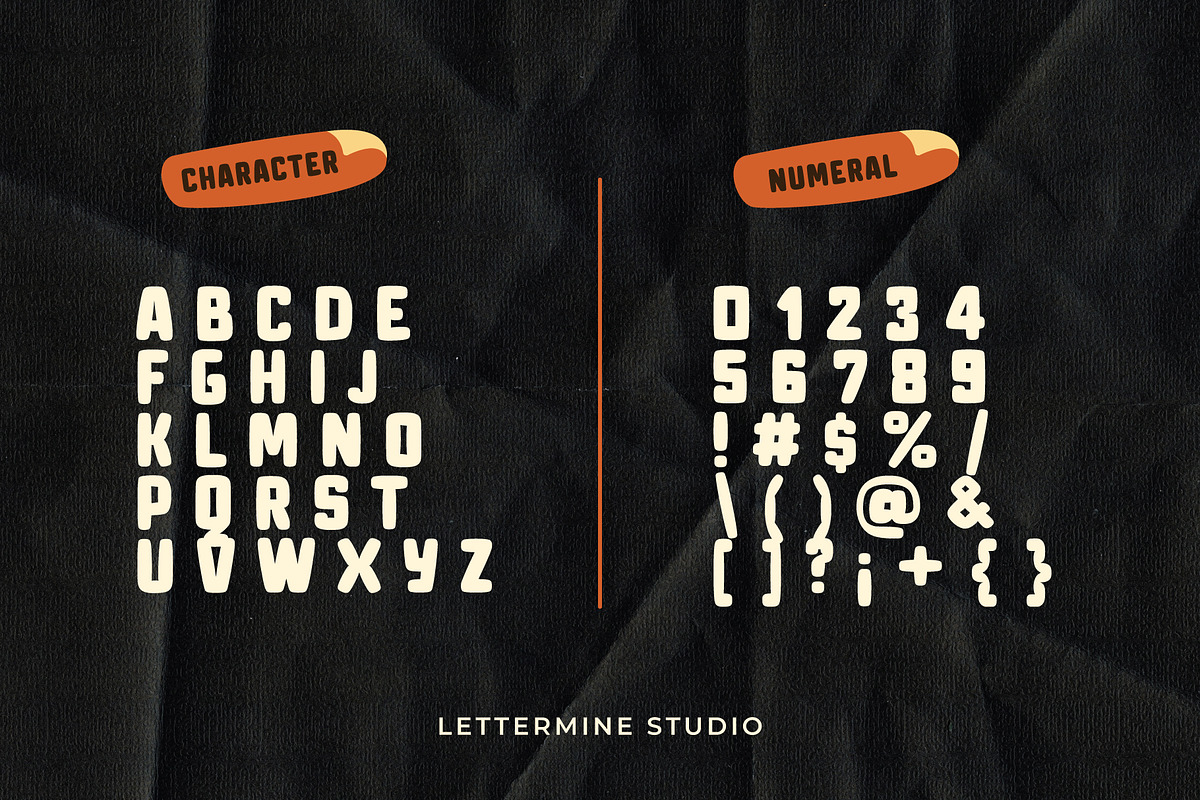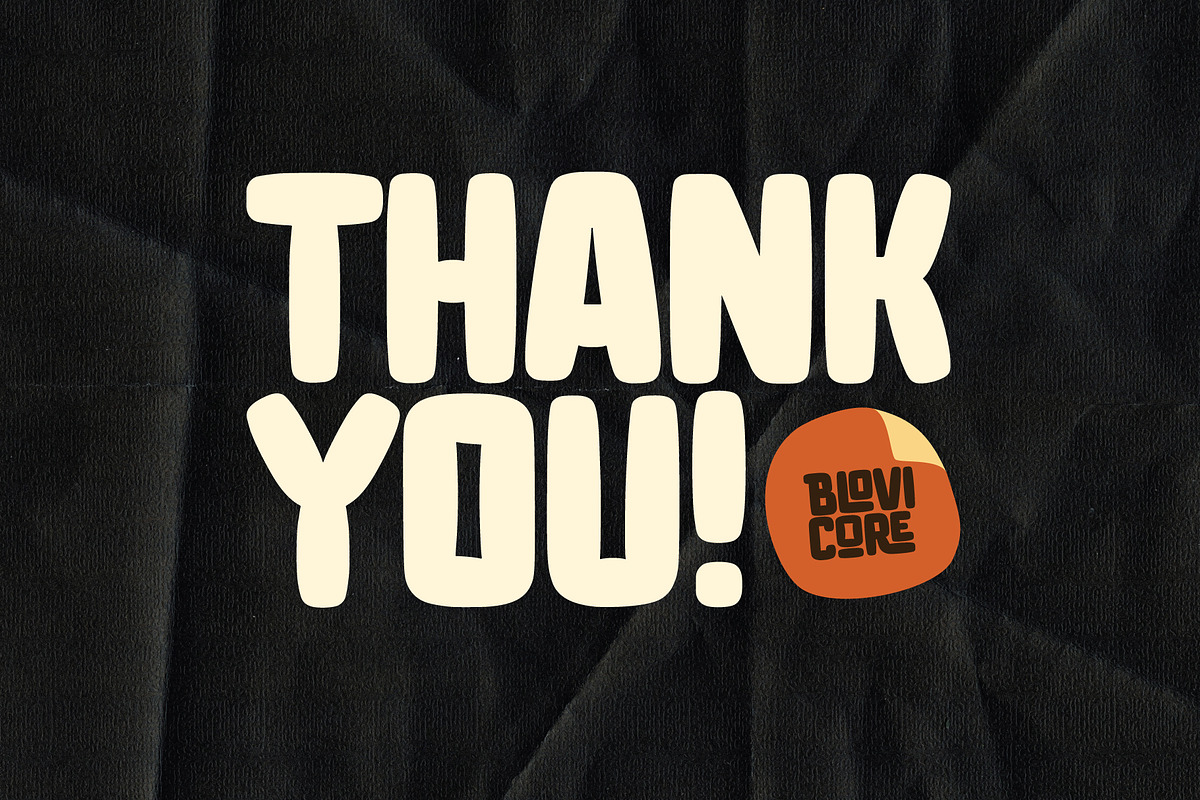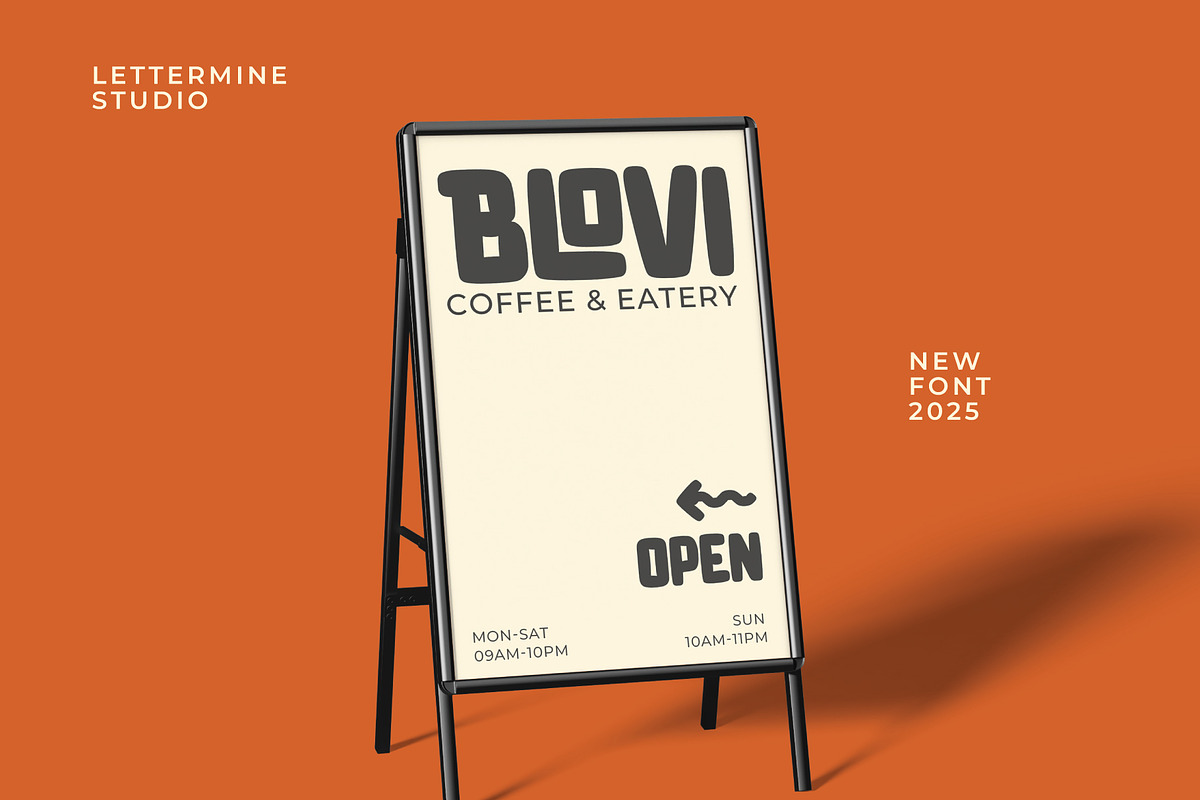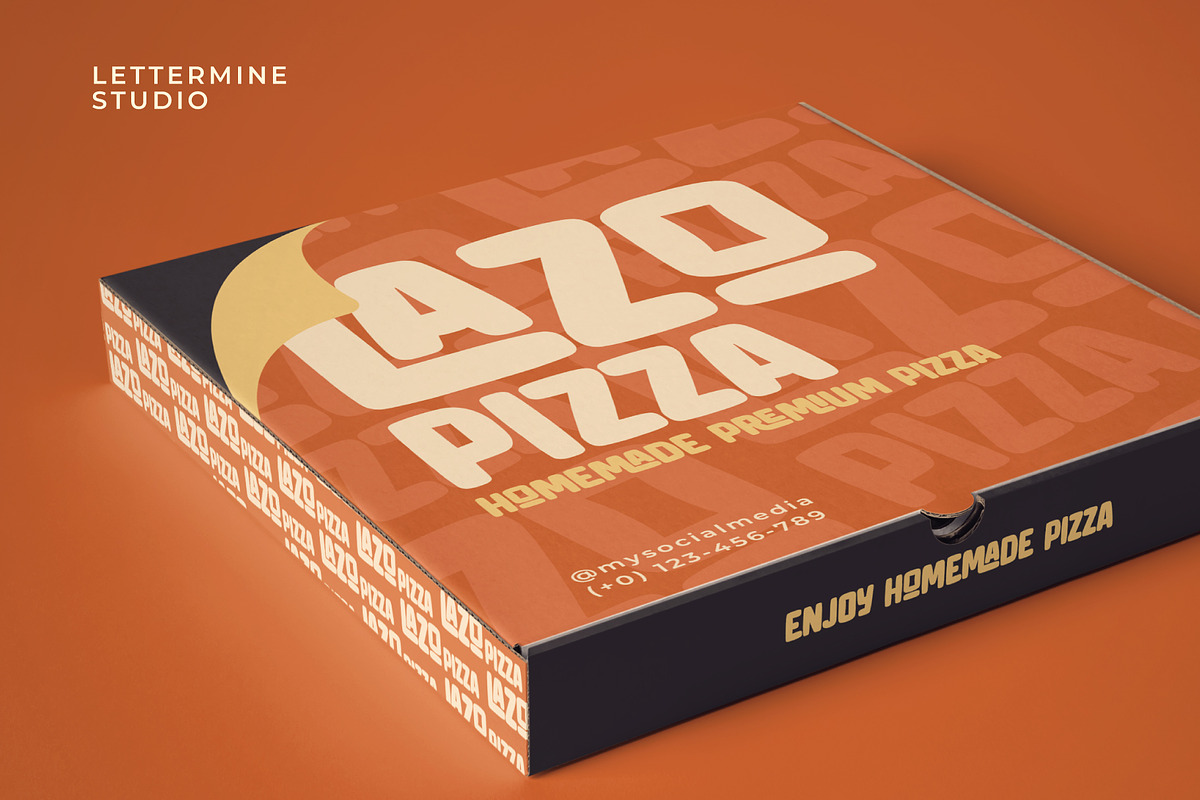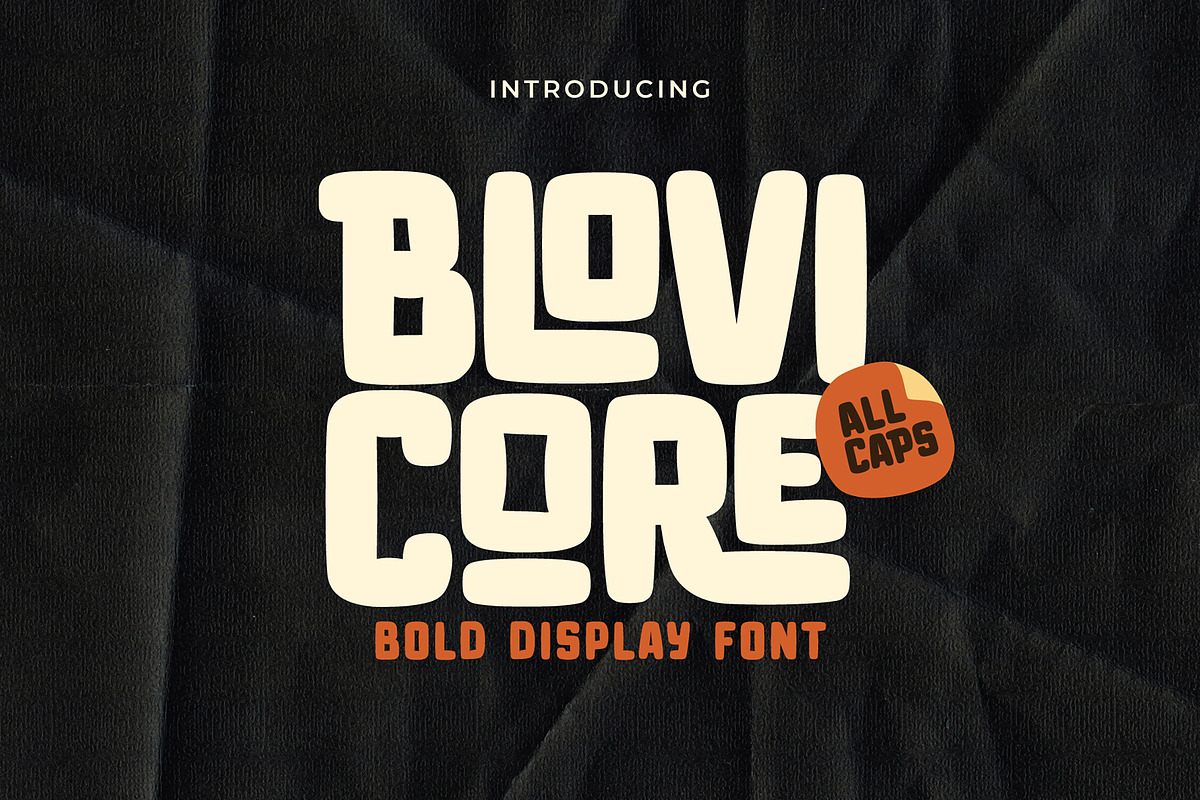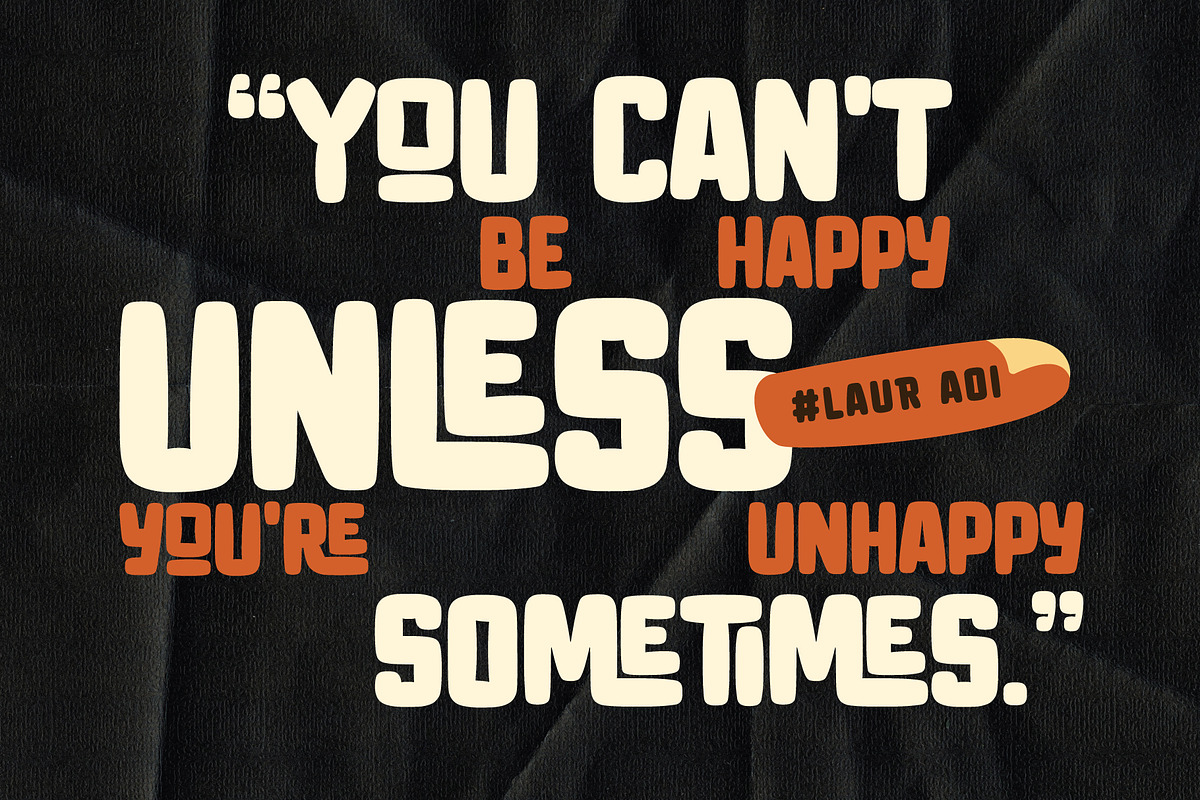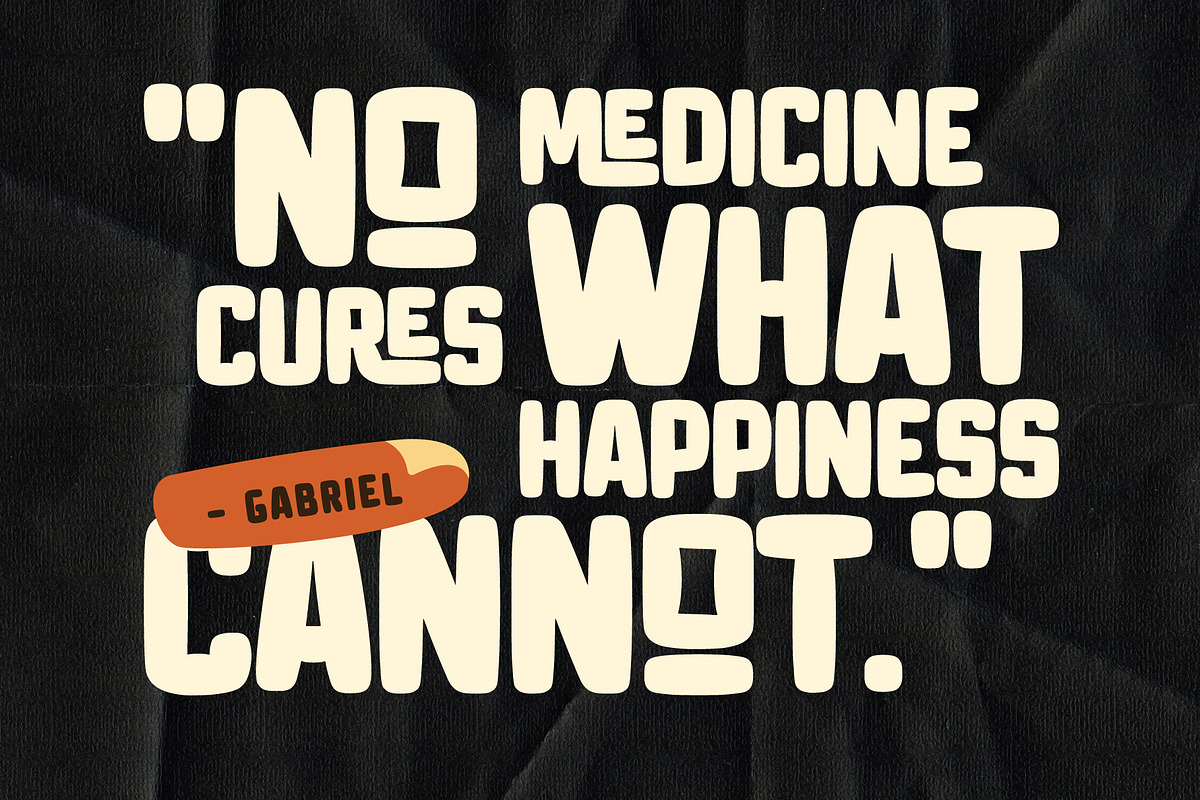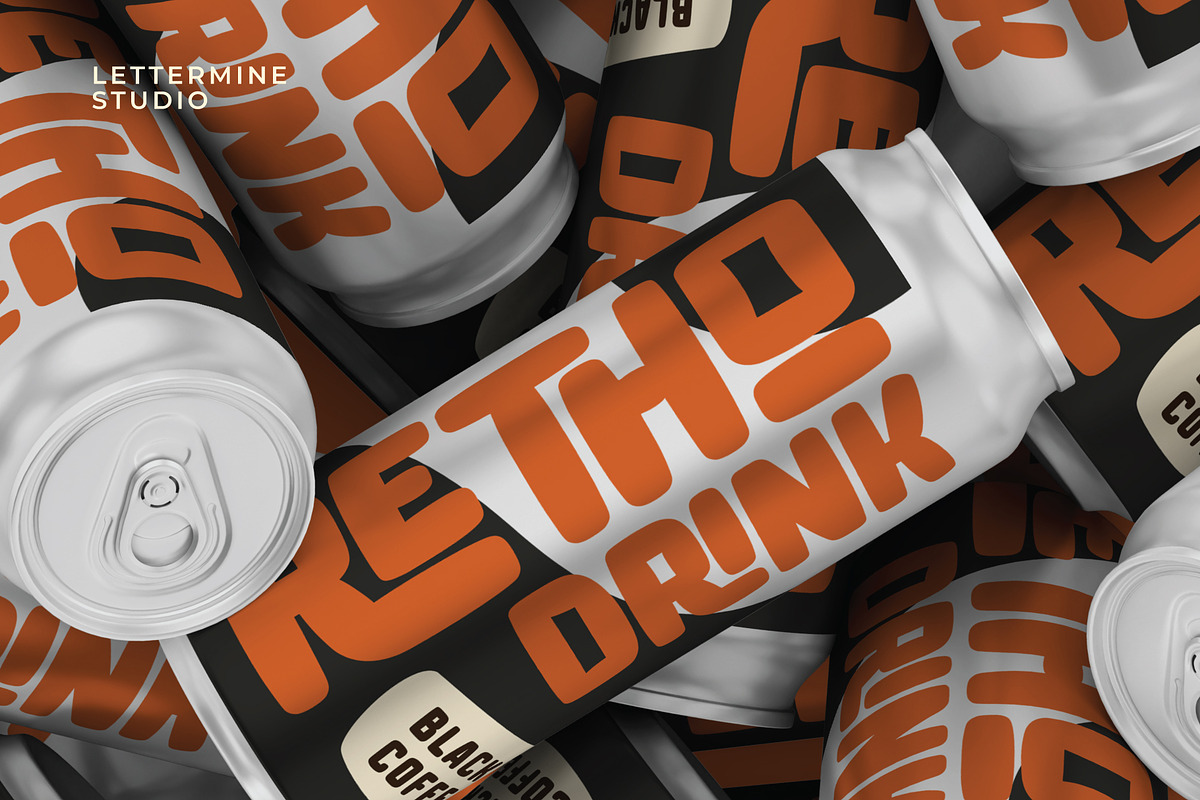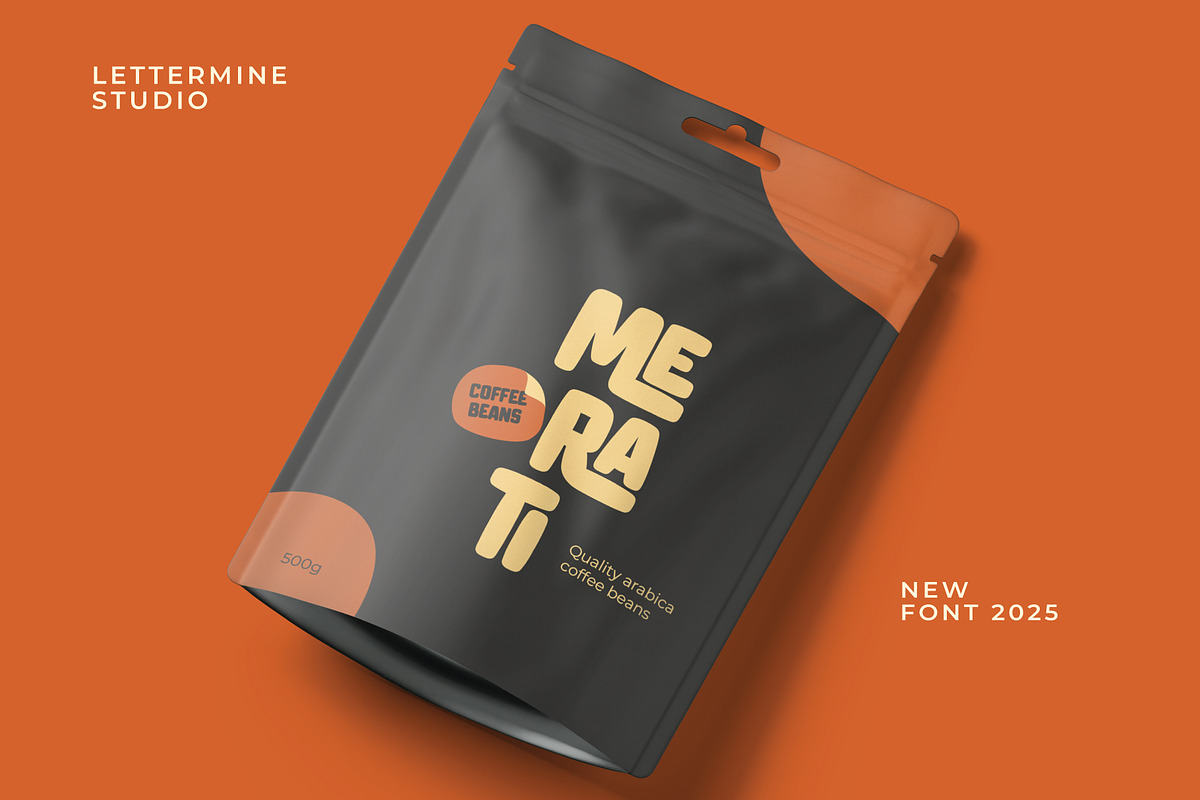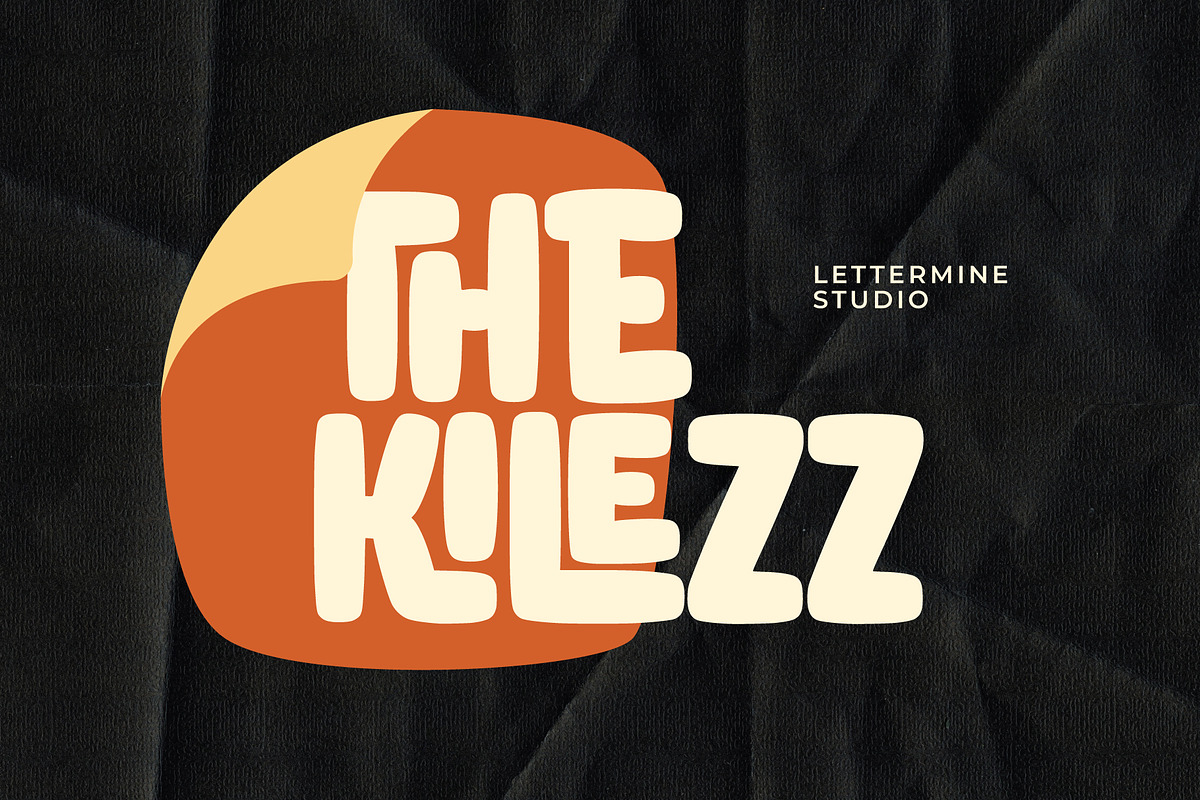
Blovi Core – Bold Food Food
Blovi Core – Bold Food
Blovi Core is a bold display font inspired by playful, food-themed designs. Its chunky and rounded letterforms create a cheerful and friendly impression, making it perfect for packaging, menus, logos, and various creative projects that need a fun and full-of-personality touch. With its striking appearance and smooth curves, Blovi Core adds character and visual appeal to every word you type.
Bring bold flavor and irresistible charm to your designs.